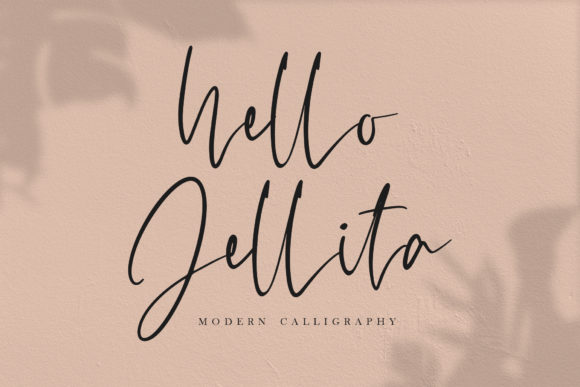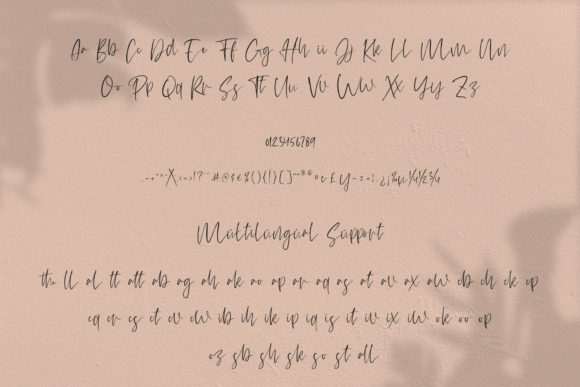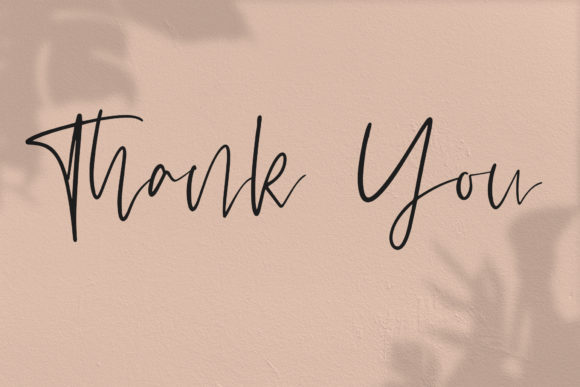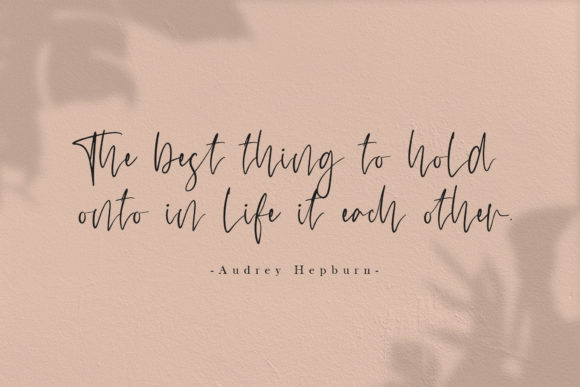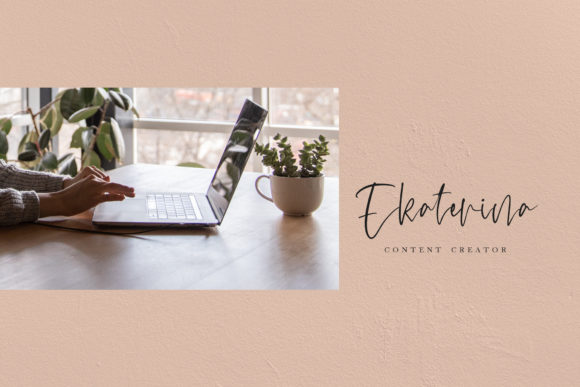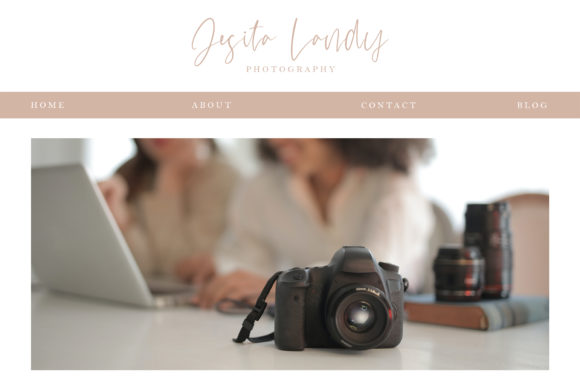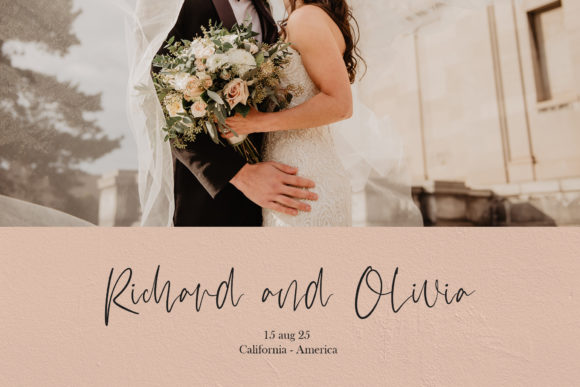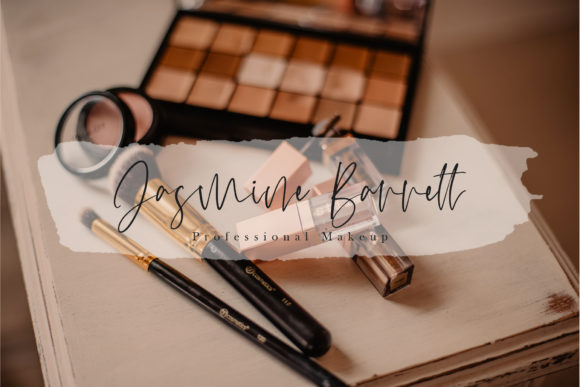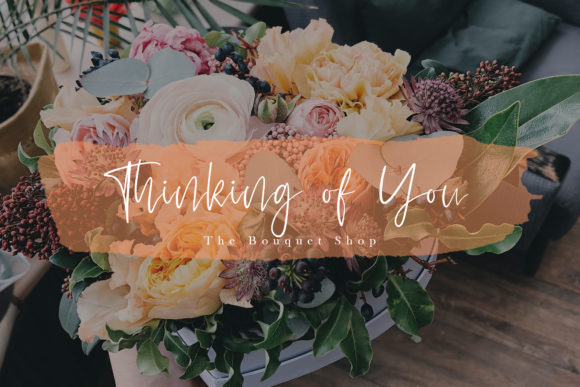
Hello Jellita Font
About Hello Jellita Font
Hello Jellita feels timeless and incredibly relaxed. It looks stunning on wedding invitations, thank you cards, quotes, greeting cards, logos, business cards and every other design which needs a handwritten touch.